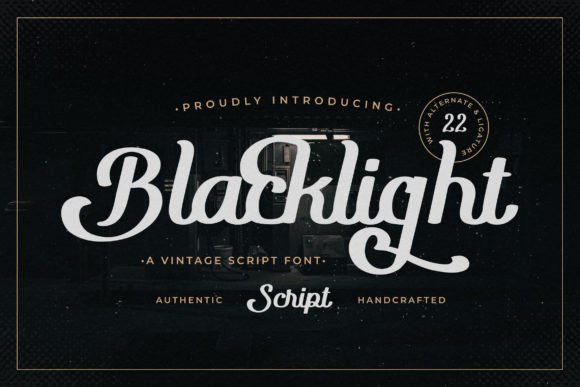
Journey into the realm of elegance and sophistication with Blacklight Font, a vintage script font that exudes nostalgia and a timeless charm. Crafted by the talented hands at TypeFactory, this font collection is a symphony of creativity, inviting you to explore the boundless possibilities it holds.
Unveil the alluring curves and delicate strokes that define Blacklight Font, a masterpiece that oozes vintage charm. Each letter is a work of art, meticulously designed to evoke a sense of authenticity and nostalgia. Whether you're a logo designer seeking to create captivating identities, a graphic artist yearning for captivating headlines, or a passionate crafter seeking unique touches for your next project, Blacklight Font is your muse.
With its versatility, Blacklight Font transcends boundaries, lending its timeless appeal to a myriad of applications. Envision your designs adorned with this font, transforming ordinary words into captivating expressions. From logos that exude authority and heritage to headings that command attention, Blacklight Font elevates your creations to the realm of the extraordinary.
Step into the world of classic elegance with Blacklight Font. Let its vintage essence infuse your designs with a touch of nostalgia, creating visual masterpieces that resonate with your audience. Embrace the beauty of the past while forging ahead into the future, using this font as your guiding light.